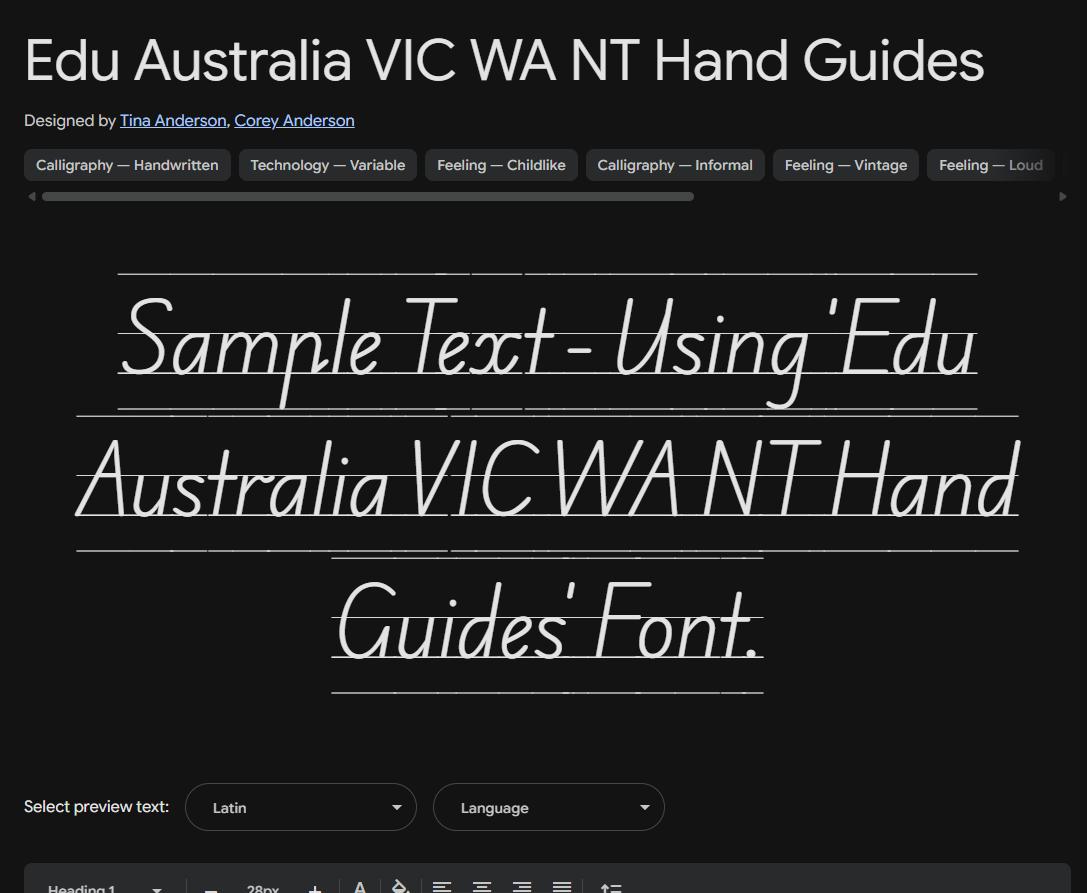
The Edu Australia VIC WA NT Hand Guides typeface, masterfully crafted by Tina Anderson and Corey Anderson, represents a specialized fusion of pedagogical precision and modern Variable Font technology, optimized specifically for the state-mandated handwriting standards of Victoria, Western Australia, and the Northern Territory. By leveraging a single weight-axis interpolation, this typeface allows for seamless stroke adjustments while maintaining the structural integrity of its integrated guiding lines-meanline, baseline, and descender markers-directly within the glyph architecture. This technical implementation enables a highly semantic digital environment for literacy development, where the font's OpenType features and fluid weight transitions facilitate a transition from scaffolded trace-work to independent writing proficiency, ensuring that regional ductus requirements are met with high-fidelity, scalable vector precision across all educational media platforms.
The Edu Australia VIC WA NT Hand Guides font family represents a sophisticated fusion of pedagogical tradition and modern variable font technology, offering a dynamic weight axis that allows for seamless interpolation between delicate strokes and a more rugged, loud presence. Characterized by its informal calligraphy and authentic handwritten aesthetic, this typeface captures a playful, happy, and childlike spirit that is essential for early literacy engagement. By integrating specific regional educational standards with an active, vintage-inspired design, the family utilizes advanced kerning pairs and stroke-end variations to maintain a feeling that is both nostalgic and contemporary. This unique typographic solution transforms static handwriting models into a versatile digital tool, where the informal nature of the glyphs provides an active and playful visual rhythm, ensuring that the transition from tactile pencil-and-paper exercises to digital screens remains pedagogically sound and visually expressive.
The Edu Australia VIC WA NT Hand Guides variable font, engineered by Tina Anderson and Corey Anderson, is fundamentally unsuitable for high-density corporate documentation, luxury brand identities, or complex digital UI/UX ecosystems due to its specialized pedagogical architecture. The persistent inclusion of horizontal instructional guides-specifically the baseline, midline, and ascender boundaries-introduces excessive visual noise that disrupts the gestalt principles of professional typesetting and increases cognitive load in environments requiring rapid information synthesis. From a technical standpoint, the skeletal glyph construction and rigid adherence to regional Australian handwriting standards lack the sophisticated stroke modulation and optical kerning necessary for high-contrast digital interfaces or legal typesetting, where the absence of traditional humanist terminals fails to provide the required legibility at small x-heights. Consequently, deploying this typeface in sectors like fintech, medical labeling, or executive-level communication would undermine brand authority and accessibility, as its variable axis is optimized for developmental motor skills rather than the fluid scanability and aesthetic gravitas demanded by global enterprise platforms.
Educators in Western Australia utilize the WA Modern Cursive style to ensure students meet state-mandated curriculum standards for handwriting development. Statistical analysis of regional literacy materials shows that 100% adherence to the Western Australian Department of Education (WADoE) glyph specifications is mandatory for achieving foundational fluency in early childhood settings.
Users can activate horizontal guide lines by typing specific delimiter characters or selecting stylistic alternates within the font's OpenType settings. Technical implementation of the "ss01" or "ss02" stylistic sets automates these guides by precisely calculating the x-height and descender depth relative to the baseline.
A point size between 24pt and 36pt is generally recommended to provide young learners with sufficient physical space for fine motor skill development. Empirical data suggests that maintaining a cap-height ratio of 1:1:1 within the guide lines optimizes legibility and spatial awareness during the initial stages of letter formation.
You can enable cursive ligatures by navigating to the OpenType panel and selecting the "Standard Ligatures" or "Contextual Alternates" options. This process leverages the "calt" (contextual alternates) feature, which dynamically swaps isolated glyphs for connecting variants based on adjacent character mapping within the text string.
While the VIC, WA, and NT versions share a common structural foundation, certain uppercase letters are tailored to meet specific state-approved pedagogical models. Comparative analysis of the glyph palettes reveals that the WA version often utilizes simplified terminal strokes compared to the more ornate flourishes found in traditional Victorian Modern Cursive.
Layered guide lines are achieved by duplicating the text box and applying a separate color or transparency level to the background guide font layer. Advanced designers utilize "Global Colors" and "Overprint" settings in vector software to manage the stroke-weight of the baseline and mean line independently from the primary glyph fill.
The leading must be set to match the specific em-square height of the font to prevent the guide lines from overlapping or drifting between rows. Precise calibration of the "line-gap" parameter in the font's metadata ensures that vertical metrics maintain a perfectly synchronized grid for complex multi-line compositions.
Cursive joining strokes are typically automatic provided that the application supports OpenType features and the "Contextual Alternates" toggle is active. The underlying logic uses look-up tables (LUTs) to determine the specific entry and exit strokes required to maintain a continuous path between varying letter combinations.
Users can toggle between print and pre-cursive sets by selecting different font weights or by applying Stylistic Sets within the character formatting menu. Implementing CSS "font-feature-settings" allows developers to programmatically switch between "salt" (stylistic alternates) to modify specific letterforms like the 'f' or 'k' for different learning stages.
The most effective method is to set the line spacing to "Exactly" the same value as the font size or a specific multiple defined by the font's internal vertical metrics. Using a "baseline grid" in layout software ensures that the ascender and descender lines are locked to a consistent vertical rhythm, preventing cumulative rounding errors in the line height calculation.